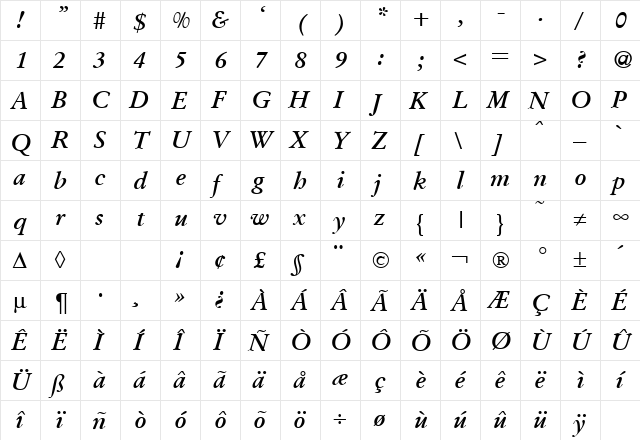
GaramondOriginal BoldItalic Font Preview
GaramondOriginal BoldItalic
Design Context for GaramondOriginal Typeface
GaramondOriginal takes a measured approach to typography — its balanced proportions and neutral character make it a reliable workhorse for both digital and print work. The dynamic lean of this cut emphasises speed and emphasis in any layout. Its bold stroke weight gives it real presence on the page.
Pro Tip: Use GaramondOriginal for emphasis, pull quotes, and subheadings where its slanted energy can add rhythm to the layout.